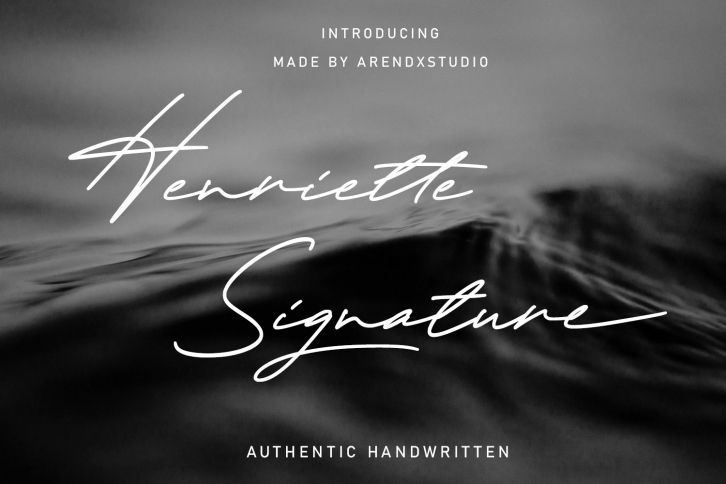
Henriette Signature Script FONT Download
Henriette Signature is a handwritten signature script with a natural & stylish flow. This collection of scripts is perfect for personal branding. this works well for many applications. Everything from personal branding & wedding invitations to advertising could benefit from this collection of signature fonts
Features : • Character Set A-Z • Numerals & Punctuations (OpenType Standard) • Accents (Multilingual characters) • Ligature • Swash